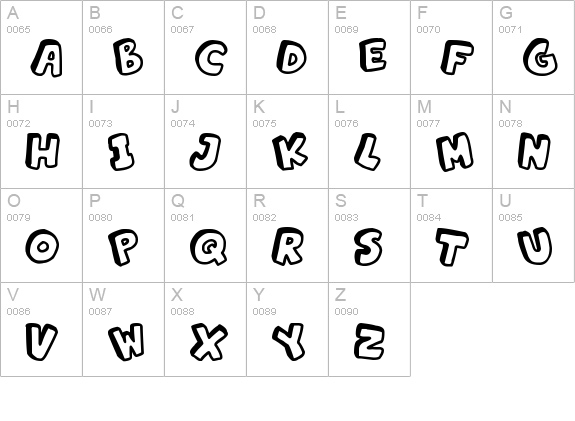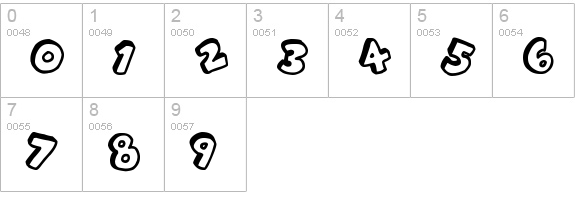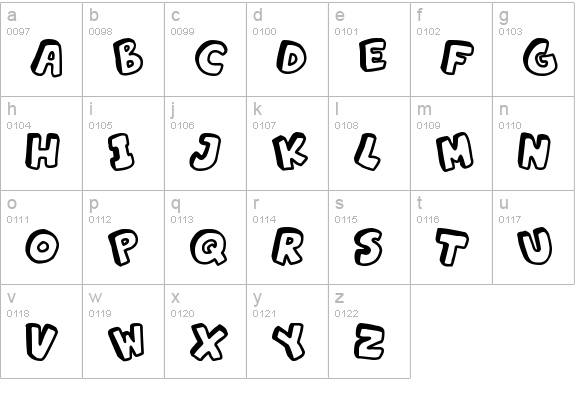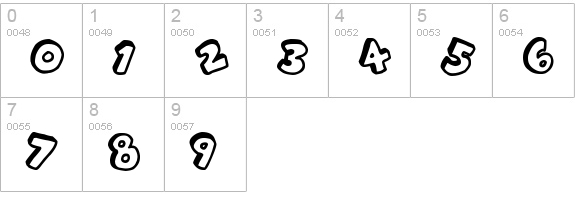
Alphabet Souplings Font Details
Alphabet Souplings font is a whimsical and playful typeface that is sure to add a touch of fun to your design projects. With its unique mix of letterforms and charming characters, this font is perfect for creating eye-catching headlines, posters, and more. The Alphabet Souplings font is available for free download at FontsMarket.com, making it easily accessible for all your creative needs. So why wait? Add a dash of creativity to your designs with Alphabet Souplings today!